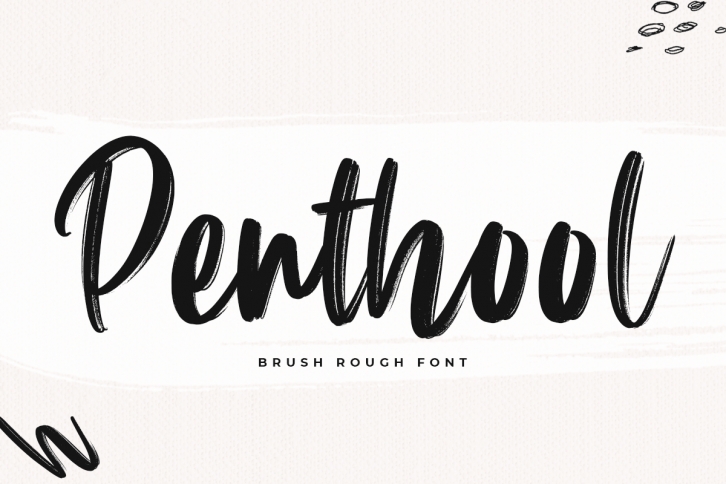
Penthool is a classy, paint-brushed handwritten font. Simple but with powerful visual effects, this font is perfect for all logos, branding, social media, fonts, typography, t-shirt designs, quotes, greeting cards, and more! This font is PUA encoded which means you can access all of the glyphs and swashes with ease!